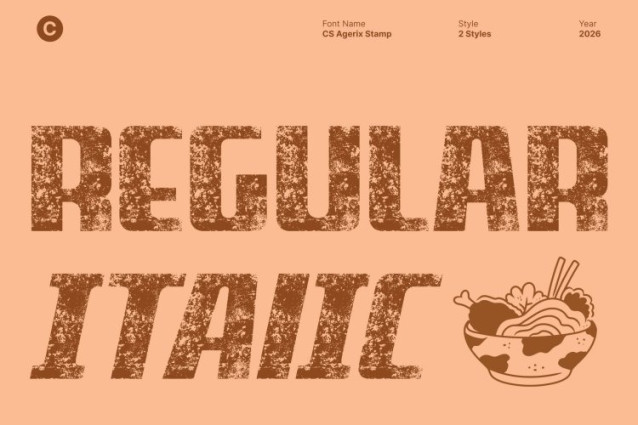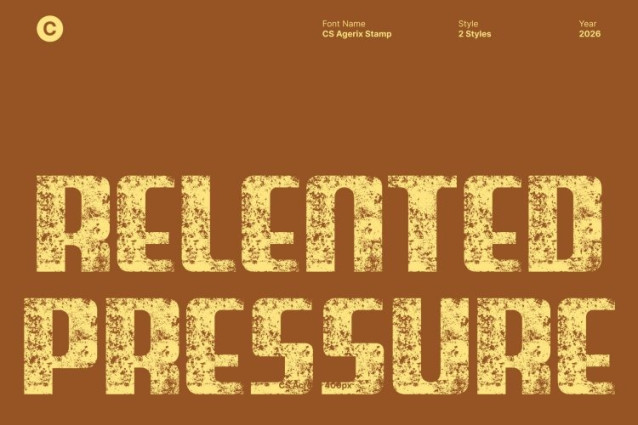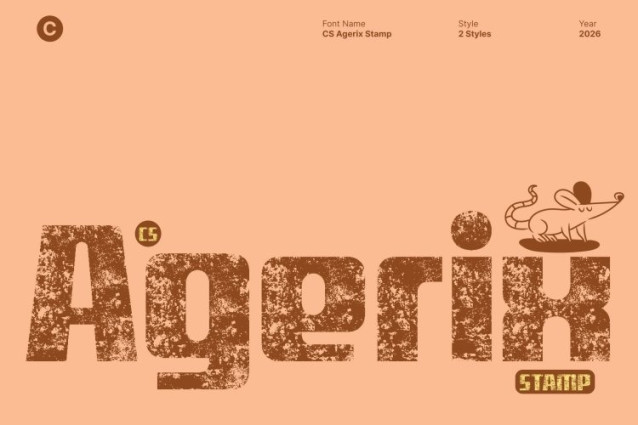
CS Agerix Stamp Font
CS Agerix Stamp Font This is a bold sans serif font built on precise forms and confident structure. Its clean and strong construction communicate clarity, innovation, and technical confidence. Enhanced with a subtle stamp effect, the font gains a rugged, industrial texture that adds character and depth.
Clean with Artistic Stamp Detail
The sharp lines, balanced proportions, and solid shapes deliver a sense of order and stability. The stamped texture introduces organic imperfections inspired by industrial print and mechanical markings, giving the font a vintage edge while maintaining its precise, functional appearance.
Industrial Aesthetic with Modern Balance
This font blends bold industrial energy with smooth, modern refinement. The textured finish softens its rigidity, creating a harmonious balance between strength and sophistication. This makes the font ideal for contemporary designs that merge technology, structure, and visual impact.
Versatile for Branding and Creative Applications
Perfect for branding, logos, posters, techno layouts, editorial designs, digital interfaces, and corporate identities, this font adapts seamlessly across media. Its modern geometric foundation combined with stamped industrial texture makes it an excellent choice for designers seeking innovation, reliability, and expressive precision.